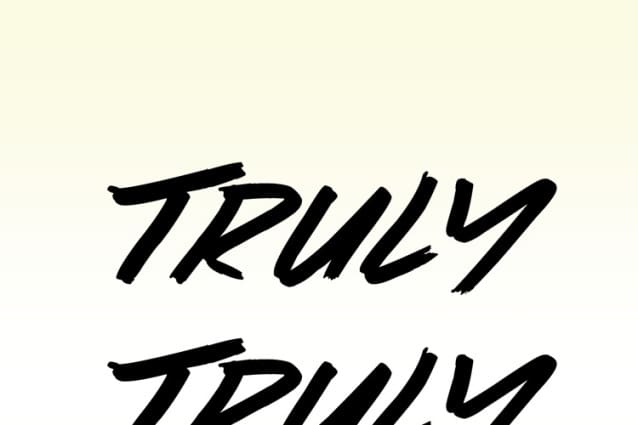
Truly Truly Font
Truly Truly Font, Cool handwritten font. Perfect for advertising and display purposes, including banners, book covers, shirts, posters, logos and much more!